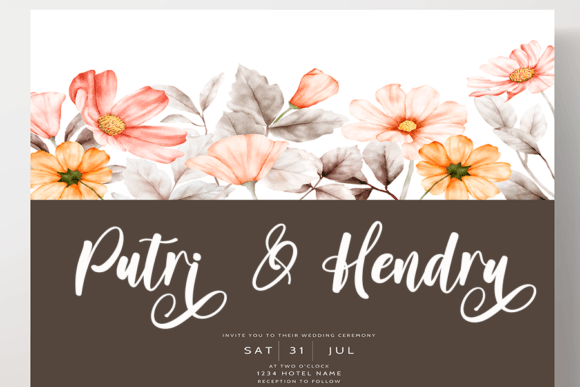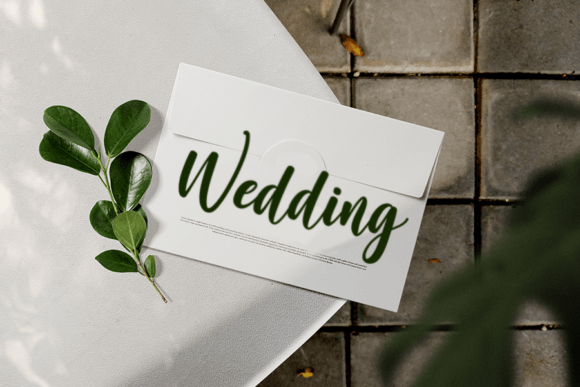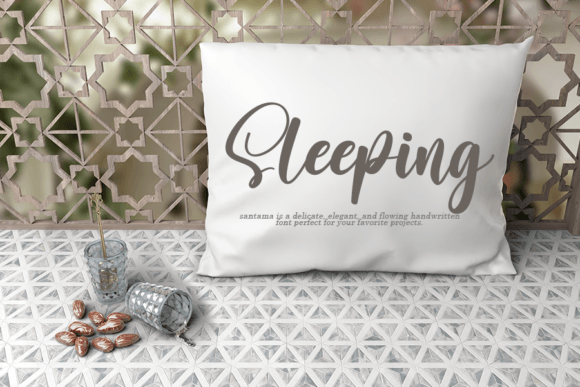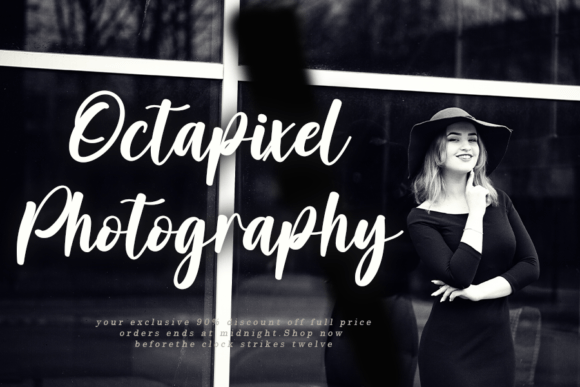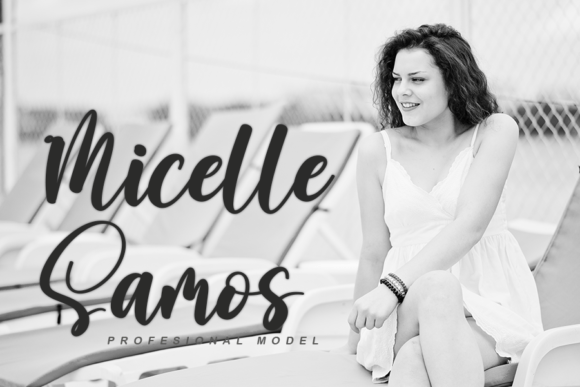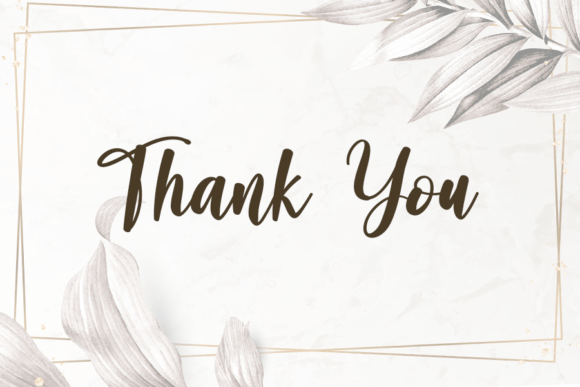
Santama Font
Santama Font Download – Gorgeous Elegant Handwritten Script
The Santama Font download is a beautifully crafted handwritten script that adds elegance and sophistication to your designs. With its curvy lines and refined flow, this font is a perfect choice for both personal and professional projects. Because of its versatility, it adapts easily to product packaging, magazines, weddings, and social media content.
Gorgeous and Elegant Handwritten Style
Santama features smooth strokes and elegant curves that create a refined handwritten appearance. As a result, it adds sophistication and charm to any project. In addition, its timeless style ensures that your work stays stylish and modern.
Perfect for Invitations and Weddings
From wedding invitations to romantic greeting cards, this font makes words feel personal and memorable. It creates a heartfelt, elegant tone that enhances your stationery projects. Therefore, it is a top choice for wedding and event-related designs.
Santama Font Download for Branding and Packaging
The Santama Font download is also highly effective for product packaging, logos, and branding. Its refined strokes and natural handwritten feel help businesses appear approachable while staying professional.
Magazines, Social Media, and Creative Projects
Santama works beautifully in editorial layouts, magazine covers, and social media graphics. In addition, it performs well across digital and print media, making it a reliable tool for creative professionals.
Readability and Professional Balance
While some handwritten fonts focus on decoration at the cost of clarity, Santama maintains a good balance. As a result, it looks beautiful without losing readability, making it useful for both titles and detailed text.
Why Add This Script Typeface to Your Collection?
The Santama Font download is versatile, elegant, and easy to use. In other words, it suits branding, packaging, invitations, magazines, and creative projects alike. Finally, it is a handwritten font that adds sophistication, warmth, and originality to every design.